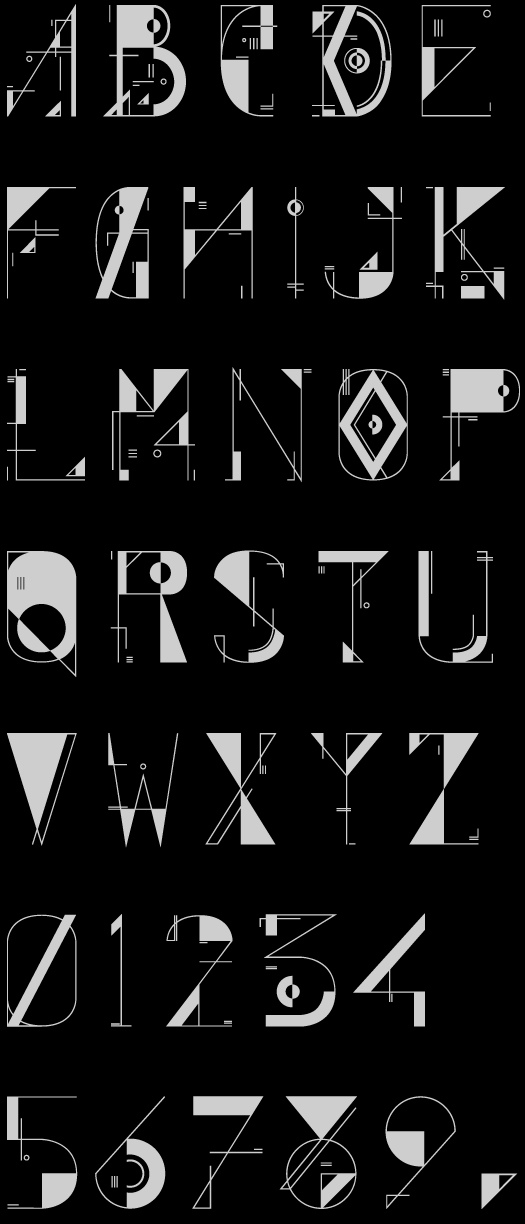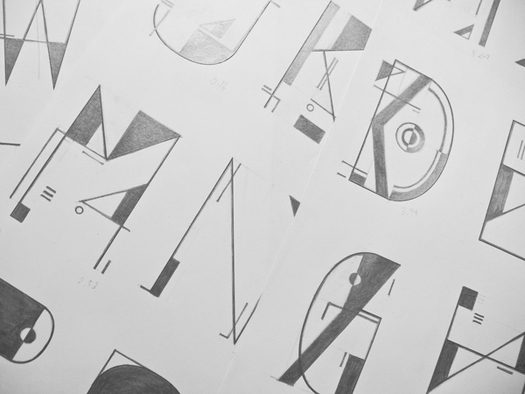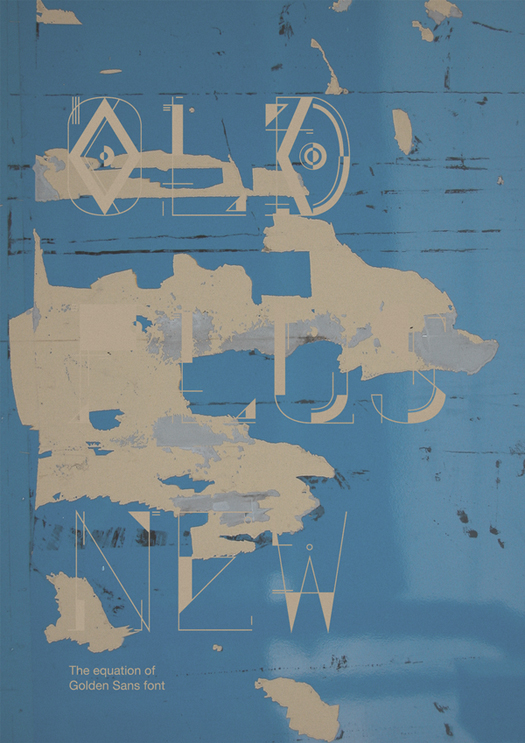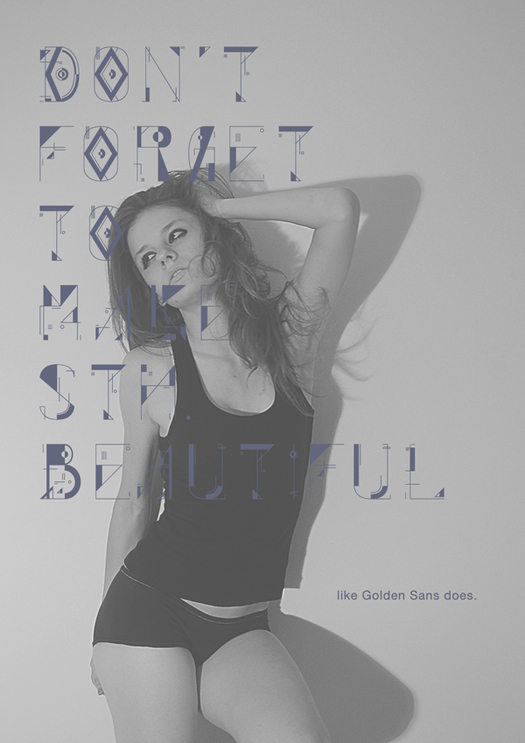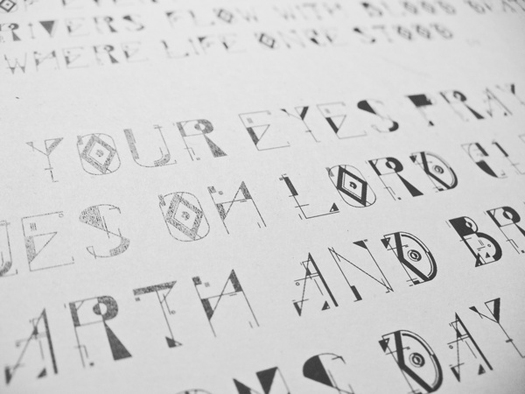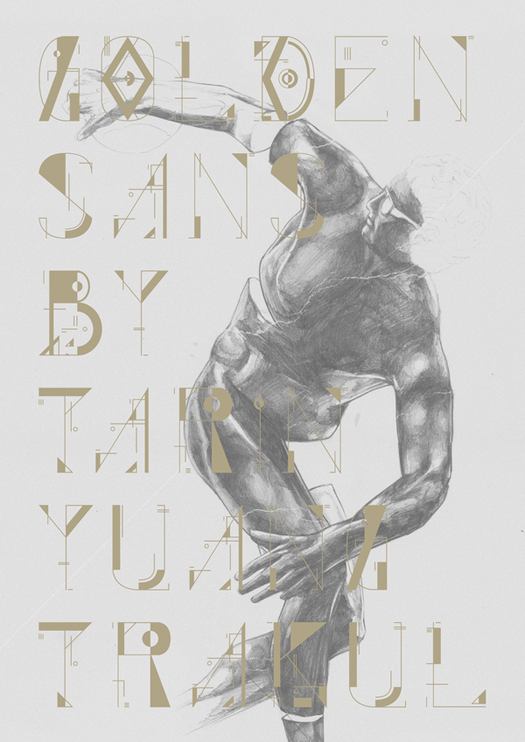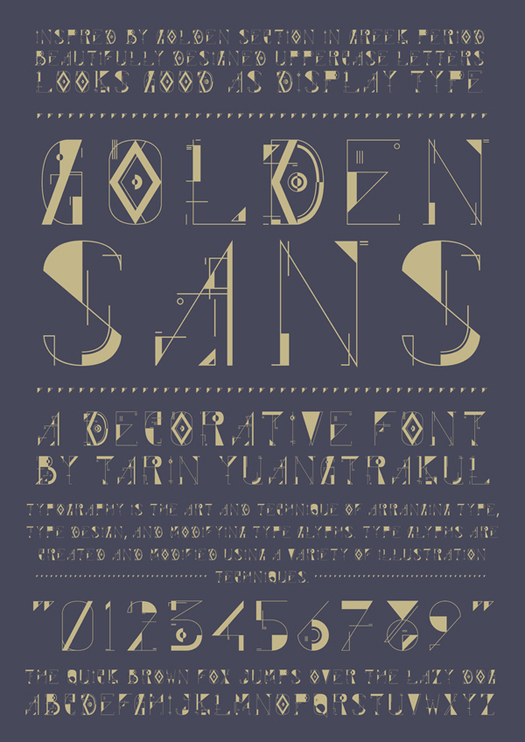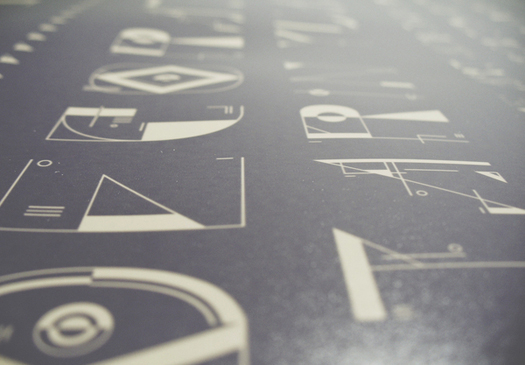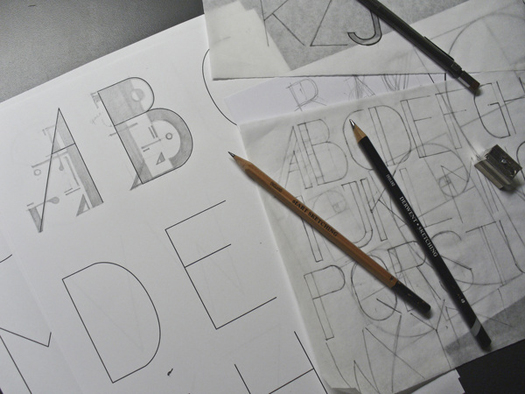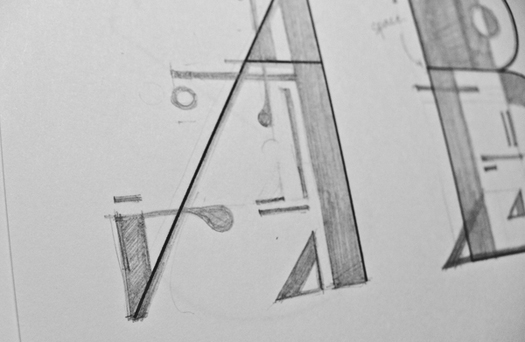
Goldensans
A decorative font by Tarin Yuangtrakul
Golden Sans font is beautifully designed to be a set of uppercase letters and numbers with high contrast in each character. Its structure guides are based on the Golden Section spiral.
Designer: Tarin Yuangtrakul
Publisher: Handmadefont